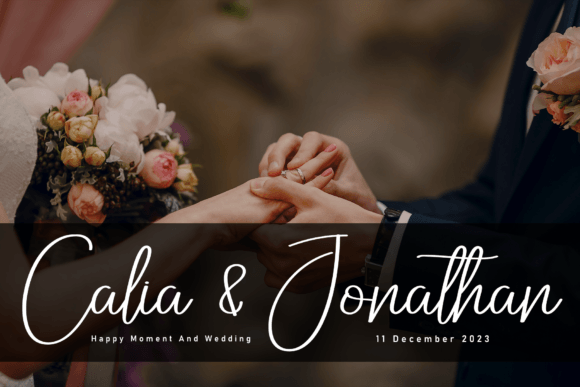
Babyghost Font: Elevate Your Designs with Elegance and Sophistication
In the world of typography, fonts play a crucial role in conveying the tone and personality of a brand or design. Among the numerous fonts available, Babyghost Font stands out as a masterpiece of handwritten elegance, blending classic calligraphic influences with a modern twist. In this article, we’ll delve into the world of Babyghost Font, exploring its features, benefits, and applications, as well as provide tips on how to make the most of this exquisite font.
What is Babyghost Font?
Baby Ghost is an exquisite handwritten font, masterfully designed to become a true favorite among designers and typography enthusiasts. Its unique blend of classic calligraphic influences and contemporary flair makes it an ideal choice for a wide range of design projects, from branding and advertising to packaging and digital media.
With its elegant and sophisticated appearance, Babyghost Font is perfect for adding a touch of luxury and refinement to any design. Its flowing lines, delicate curves, and precise lettering make it a versatile font that can be used in various contexts, from formal and professional to creative and artistic.
Benefits of Using Babyghost Font
So, what makes Babyghost Font an excellent choice for designers and brands? Here are some benefits of using this stunning font:
- Elegance and Sophistication: Babyghost Font exudes elegance and sophistication, making it perfect for high-end brands, luxury products, and premium services.
- Versatility: This font is incredibly versatile, suitable for a wide range of design projects, from print and digital media to packaging and branding.
- Readability: Babyghost Font is designed with readability in mind, ensuring that your text is clear and easy to read, even at small font sizes.
- Uniqueness: With its distinctive calligraphic influences and modern twist, Babyghost Font stands out from more traditional fonts, giving your designs a unique and memorable look.
Tips for Using Babyghost Font
To make the most of Babyghost Font, here are some design tips to keep in mind:
- Pair it with neutral fonts: Combine Babyghost Font with neutral fonts, such as sans-serif or serif fonts, to create a harmonious and balanced design.
- Use it for headlines and titles: Babyghost Font is perfect for headlines, titles, and other display text, where its elegance and sophistication can shine.
- Experiment with colors: Try pairing Babyghost Font with different colors, such as rich jewel tones or metallic colors, to add depth and luxury to your design.
- Pay attention to spacing: Make sure to adjust the spacing between letters and lines to ensure that your text is clear and easy to read.
Use Cases for Babyghost Font
Babyghost Font is an incredibly versatile font, suitable for a wide range of design projects and applications. Here are some examples of how you can use this font:
- Branding and Logo Design: Use Babyghost Font to create elegant and sophisticated brand identities, logos, and letterheads.
- Advertising and Marketing: This font is perfect for creating eye-catching ads, brochures, and marketing materials that require a touch of luxury and refinement.
- Packaging Design: Babyghost Font is an excellent choice for packaging design, particularly for high-end products, such as cosmetics, jewelry, and luxury foods.
- Digital Media: Use Babyghost Font in digital media, such as website headers, social media graphics, and email newsletters, to add a touch of elegance and sophistication.
In conclusion, Babyghost Font is an exquisite handwritten font that offers a unique blend of classic calligraphic influences and modern flair. Its elegance, sophistication, and versatility make it an ideal choice for a wide range of design projects, from branding and advertising to packaging and digital media. By following the design tips and guidelines outlined in this article, you can make the most of Babyghost Font and elevate your designs to new heights.